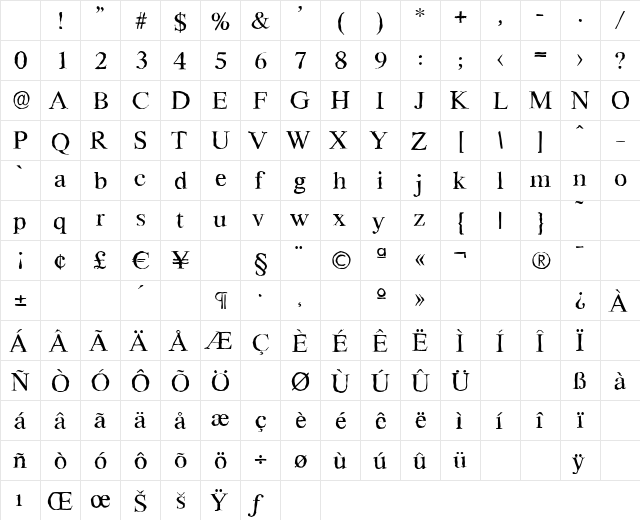
RiccioneAntique wears its vintage influences proudly, with letterforms that recall mid-century signage, classic packaging, and nostalgia-driven design.
Font Pairing: Combine RiccioneAntique with a simple slab or neutral sans - period-accurate companions reinforce the vintage feel without competing for attention.
Pro Tip: Lean into RiccioneAntique's period character by pairing it with aged paper textures, muted colour palettes, and vintage illustration styles.